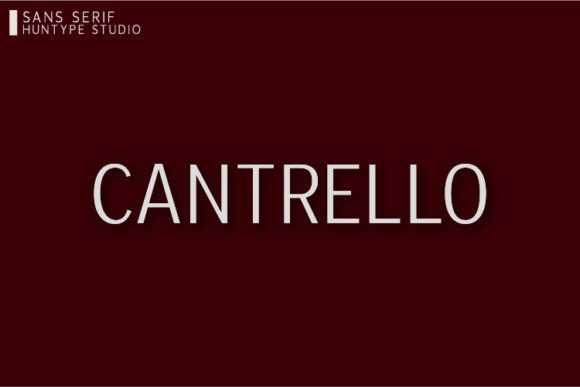
Cantrello Font: The Ultimate Sans Serif for Modern Designs
In the world of typography, fonts play a crucial role in making or breaking a design. A well-chosen font can elevate the visual appeal of a project, while a poorly chosen one can detract from it. For designers and crafters looking for a font that perfectly balances smooth and sharp elements, Cantrello Font is an excellent choice. In this article, we’ll delve into the features and benefits of Cantrello Font, and explore how it can complement your design needs.
What is Cantrello Font?
Cantrello Font is a smooth sans serif font designed to provide a perfect blend of smooth and sharp elements. Its unique design makes it an ideal choice for a wide range of design projects, from branding and advertising to packaging and digital media. The font’s smooth lines and curves create a sense of elegance and sophistication, while its sharp edges add a touch of modernity and edginess.
Key Features of Cantrello Font
- Smooth Sans Serif Design: Cantrello Font boasts a smooth sans serif design that exudes elegance and sophistication.
- Perfectly Balanced Mix: The font’s unique design combines smooth and sharp elements in perfect harmony, making it suitable for a wide range of design projects.
- High Versatility: Cantrello Font can be used for various design applications, including branding, advertising, packaging, digital media, and more.
- Easily Readable: The font’s clear and concise design ensures excellent readability, even at small font sizes.
Benefits of Using Cantrello Font
Cantrello Font offers several benefits to designers and crafters, including:
- Enhanced Visual Appeal: The font’s smooth and sharp elements create a visually appealing design that captures the audience’s attention.
- Improved Readability: Cantrello Font’s clear design ensures that your message is conveyed effectively, even in small font sizes.
- Increased Versatility: The font’s versatility allows you to use it across various design projects, reducing the need for multiple fonts.
- Time-Saving: With Cantrello Font, you can save time and effort in selecting and pairing fonts for your design projects.
Design Applications for Cantrello Font
Cantrello Font’s versatility makes it suitable for a wide range of design applications, including:
- Branding and Logo Design: The font’s smooth and sharp elements create a professional and modern look, perfect for branding and logo design.
- Advertising and Marketing: Cantrello Font’s clear design ensures that your message is conveyed effectively in advertising and marketing materials.
- Packaging Design: The font’s elegant and sophisticated design makes it suitable for packaging design, particularly for luxury and premium products.
- Digital Media: Cantrello Font’s smooth and sharp elements create a visually appealing design for digital media, including websites, social media, and mobile apps.
Tips for Using Cantrello Font
To get the most out of Cantrello Font, consider the following tips:
- Pair with Other Fonts: Experiment with pairing Cantrello Font with other fonts to create a unique and visually appealing design.
- Adjust Font Sizes: Adjust font sizes to create visual hierarchy and emphasize important information.
- Use in Headings and Body Text: Use Cantrello Font in headings and body text to create a consistent and professional look.
Cantrello Font is an excellent choice for designers and crafters looking for a smooth sans serif font that perfectly balances smooth and sharp elements. Its versatility, readability, and visual appeal make it suitable for a wide range of design projects. By incorporating Cantrello Font into your design workflow, you can create visually appealing and effective designs that capture your audience’s attention.